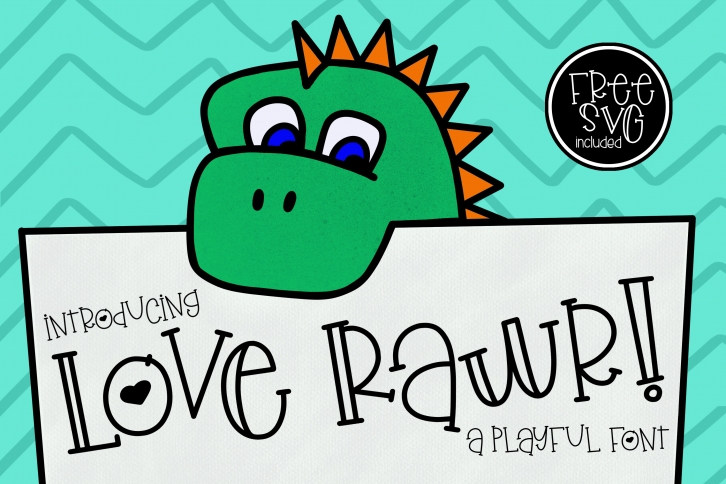
Love Rawr a playful is a beautiful font that was designed by Kitaleigh. It's a great choice for designers and creatives who need such a font. It was released on September 19, 2018 and the file size is 4.42 MB. Love Rawr a playful may give a more youthful, expressive and casual look to your project. It is a very beautiful, refined, elegant, and high-quality font.